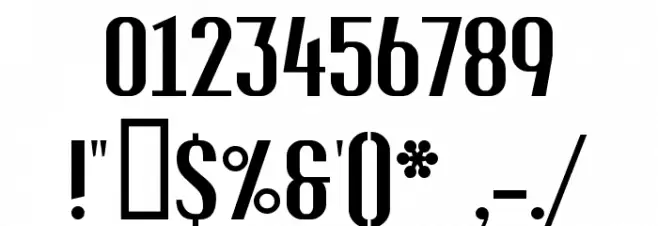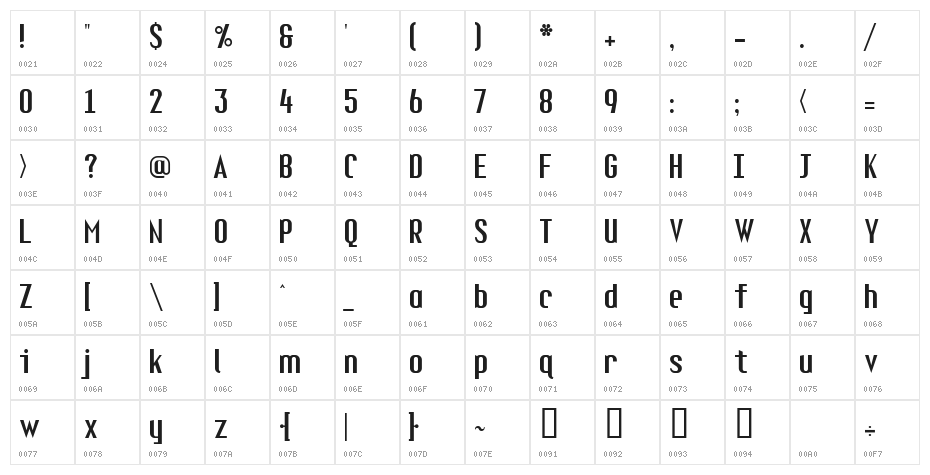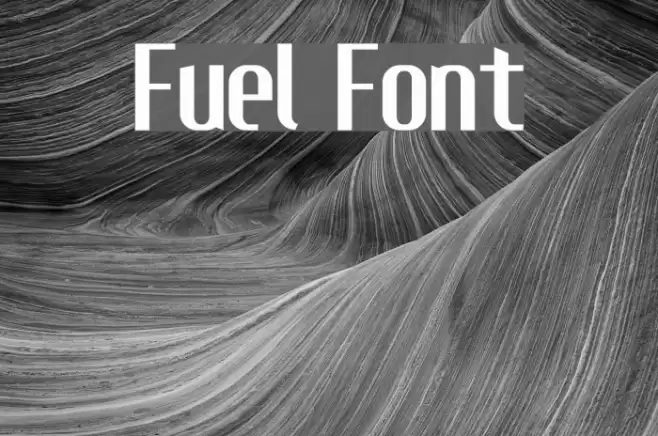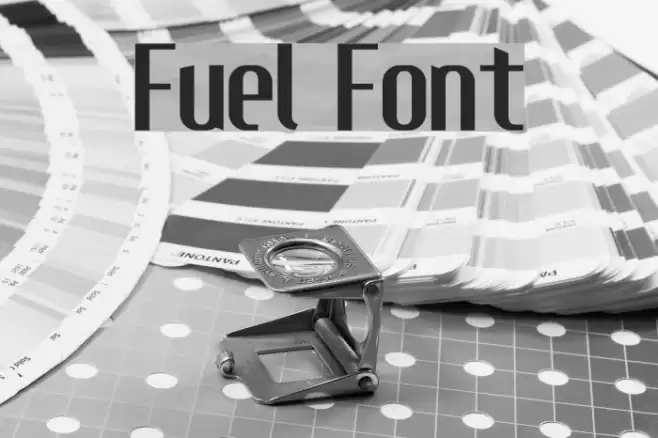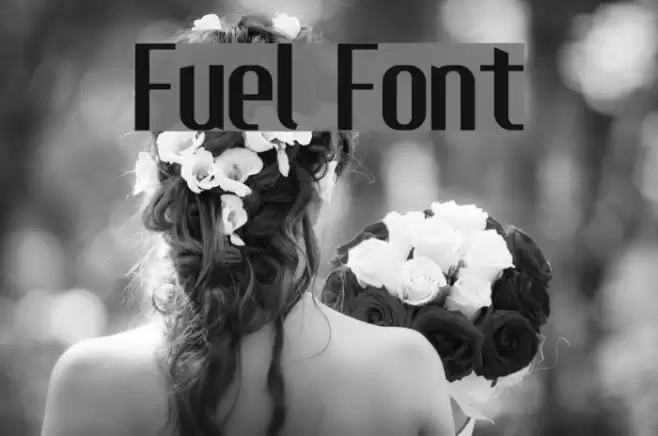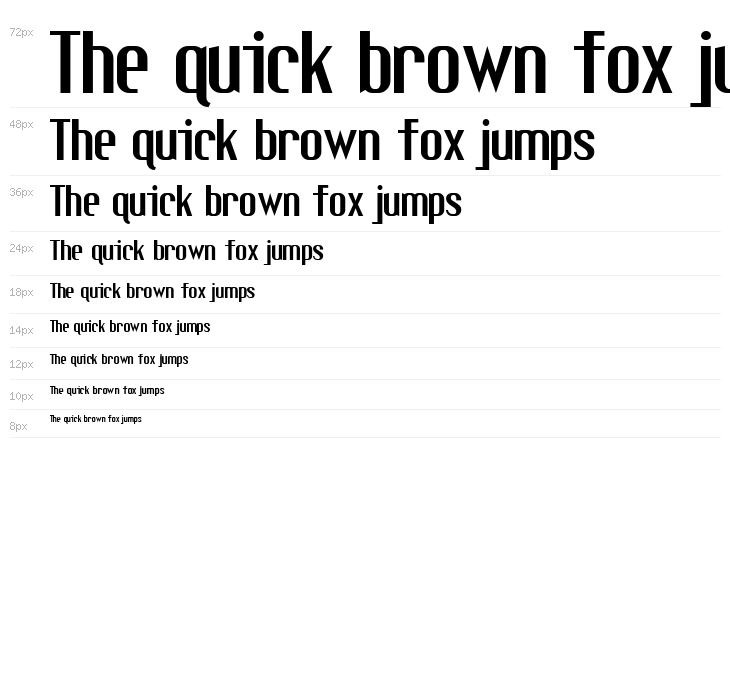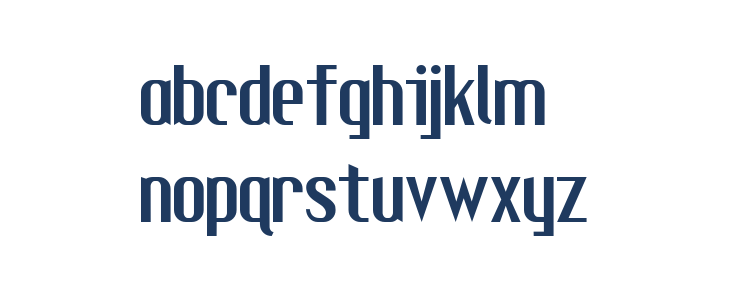
Fuel Font
Fuel Description
This font features a bold and modern design with a distinct geometric structure. The uppercase letters are tall and narrow, giving a sleek and contemporary appearance. The lowercase letters maintain a consistent style, with rounded edges that soften the overall look. Numbers are clear and easy to read, making them suitable for various applications. The special characters are well-integrated, maintaining the font's cohesive style. This font's unique blend of sharp angles and smooth curves makes it versatile for both digital and print media.